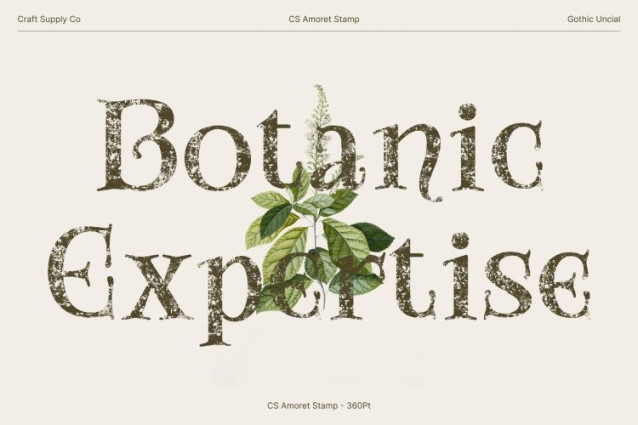
CS Amoret Stamp Font
CS Amoret Stamp Font This is a display serif font inspired by the graceful artistry of the Art Nouveau movement. Its flowing lines, decorative serifs, and organic structure echo natural forms such as vines and curves, creating a letter style that feels elegant, expressive, and visually rich. Each character reflects a harmonious balance between sophistication and artistic imagination.
Vintage Stamp Texture with Artistic Depth
The stamped texture introduces a beautifully aged quality to the font, adding subtle imperfections and worn details that enhance its vintage character. This texture gives CS Amoret Stamp the feeling of old prints and handcrafted lettering, infusing the elegant Art Nouveau forms with warmth, authenticity, and timeless artistic depth.
Elegant and Decorative Letterforms
Defined by curvaceous serifs and ornate flourishes, this font delivers a decorative yet refined visual presence. The imaginative letterforms feel luxurious and expressive, making the font ideal for designs that seek both classic elegance and creative originality. Its artistic details elevate headlines, logos, and decorative compositions with ease.
Perfect for Timeless and Artistic Design Projects
Ideal for luxury branding, editorial layouts, invitations, packaging, and artistic visuals, this font brings a refined vintage atmosphere to every project. Its combination of Art Nouveau elegance, decorative detail, and stamped texture makes it a powerful choice for designers who want to express sophistication, creativity, and historical charm in a modern context.